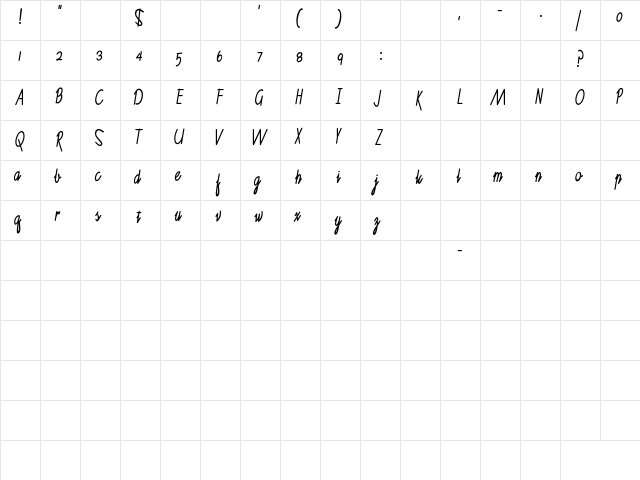
Ruth Script Regular
Design Context for Ruth Script Typeface
Ruth Script flows with the natural rhythm of handwritten lettering, making it ideal for designs that call for warmth and personal expression.
Font Pairing: Combine Ruth Script with a simple geometric sans for maximum contrast — the tension between flowing curves and clean structure is a classic typographic pairing.
Pro Tip: Use Ruth Script for short runs of text — names, titles, or taglines. Extended body copy in script faces tires the eye quickly.